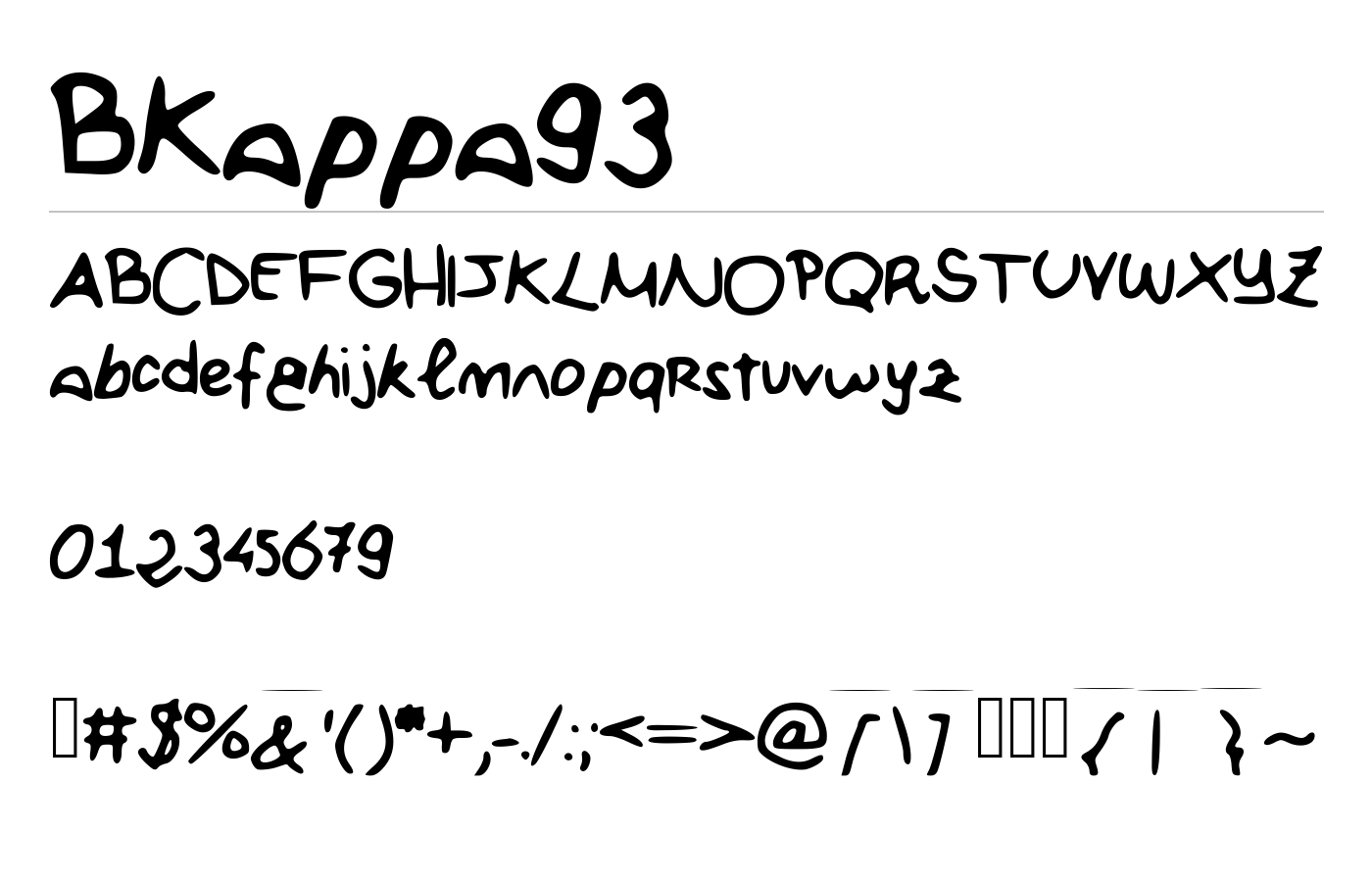
BKappa93 is a playful, hand-drawn sans serif font with irregular, rounded shapes that give it a casual and friendly vibe. Its uneven strokes and quirky letterforms make it perfect for creative, informal designs like children's books, comics, or fun branding projects. This font works well when you want to add a unique, approachable personality with a handwritten touch.
BKappa93 Font
About BKappa93 Font
| Font family | BKappa93 Font |